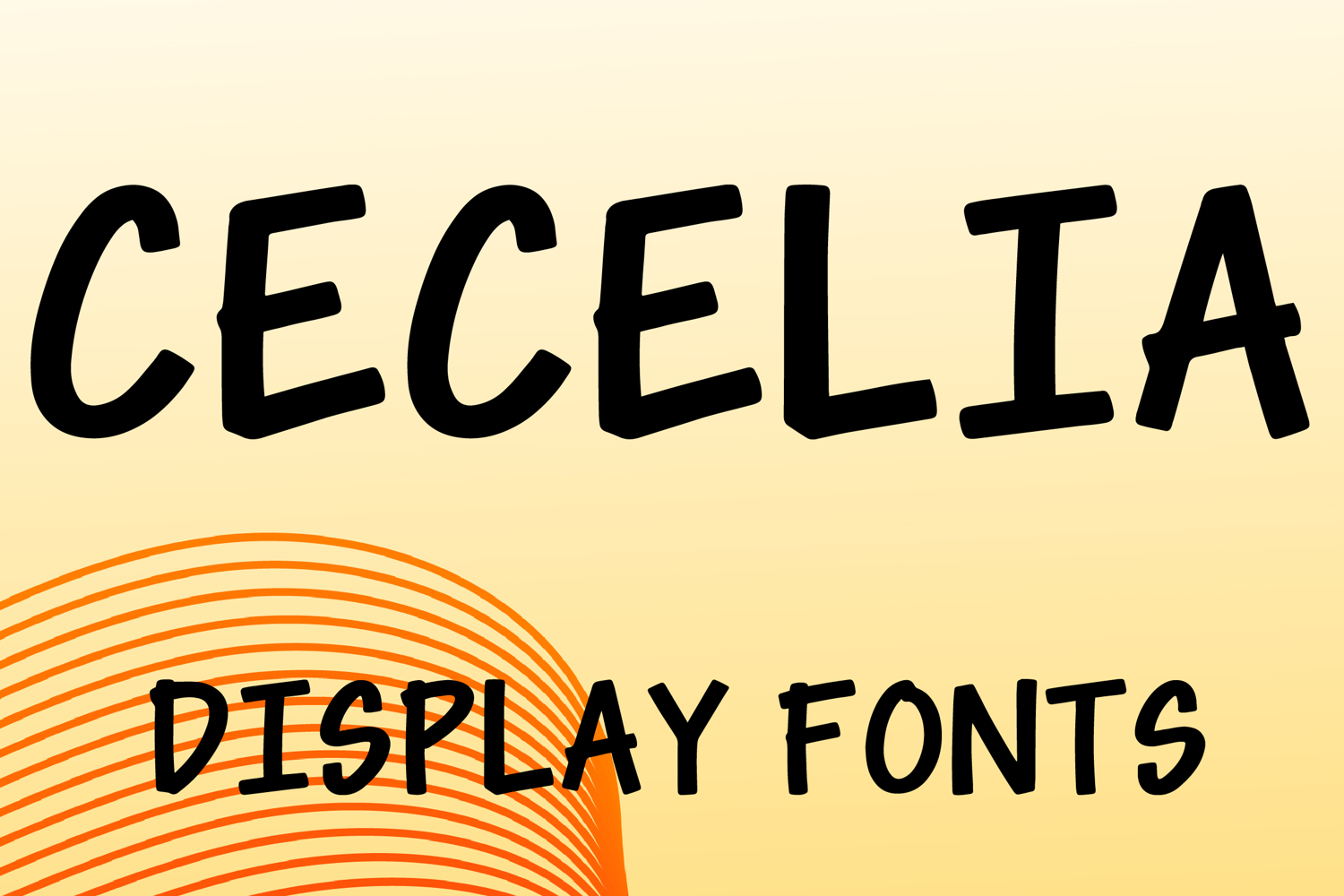
CECELIA
CECELIA is a playful display font with a bold hand-drawn style and friendly artistic charm. Its uppercase letterforms feature thick strokes, slightly rounded edges, and subtle irregular details that create a fun, casual, and eye-catching look. Designed with uppercase letters A–Z and numbers 0–9, CECELIA is perfect for branding, posters, packaging, logos, social media graphics, invitations, and creative projects that need a cheerful and memorable statement.